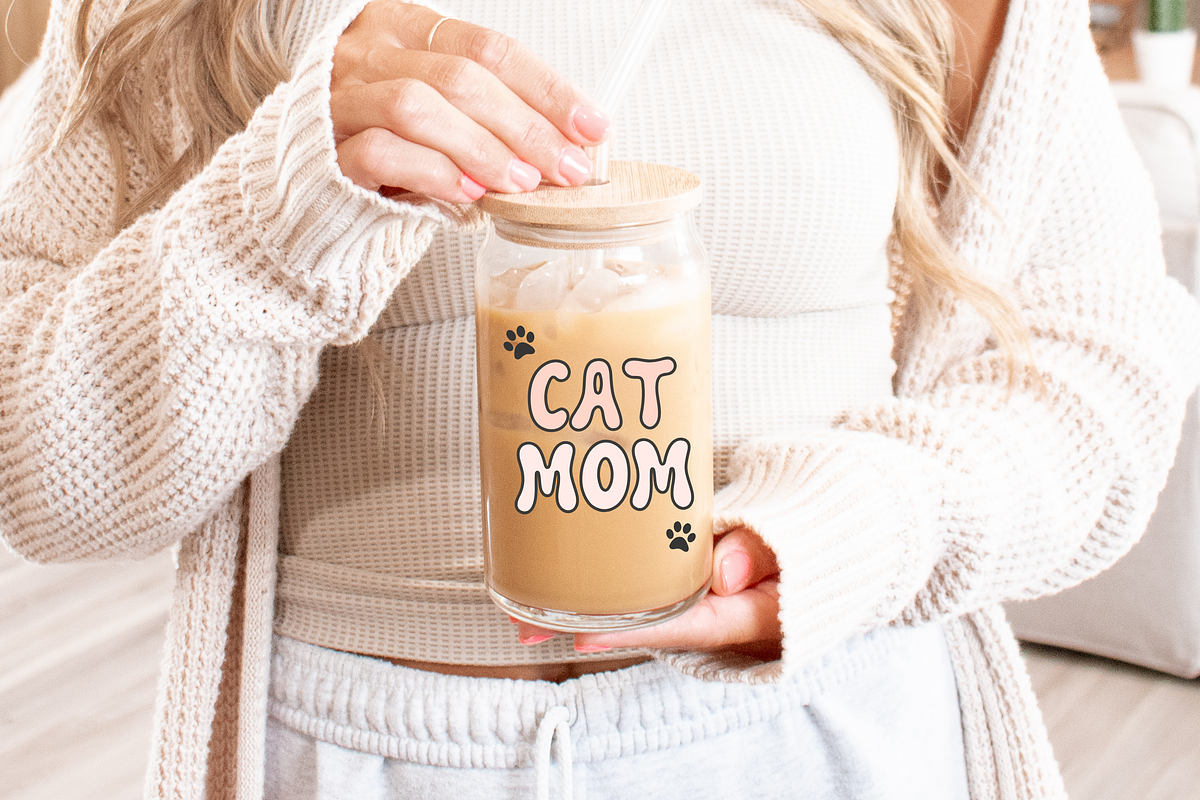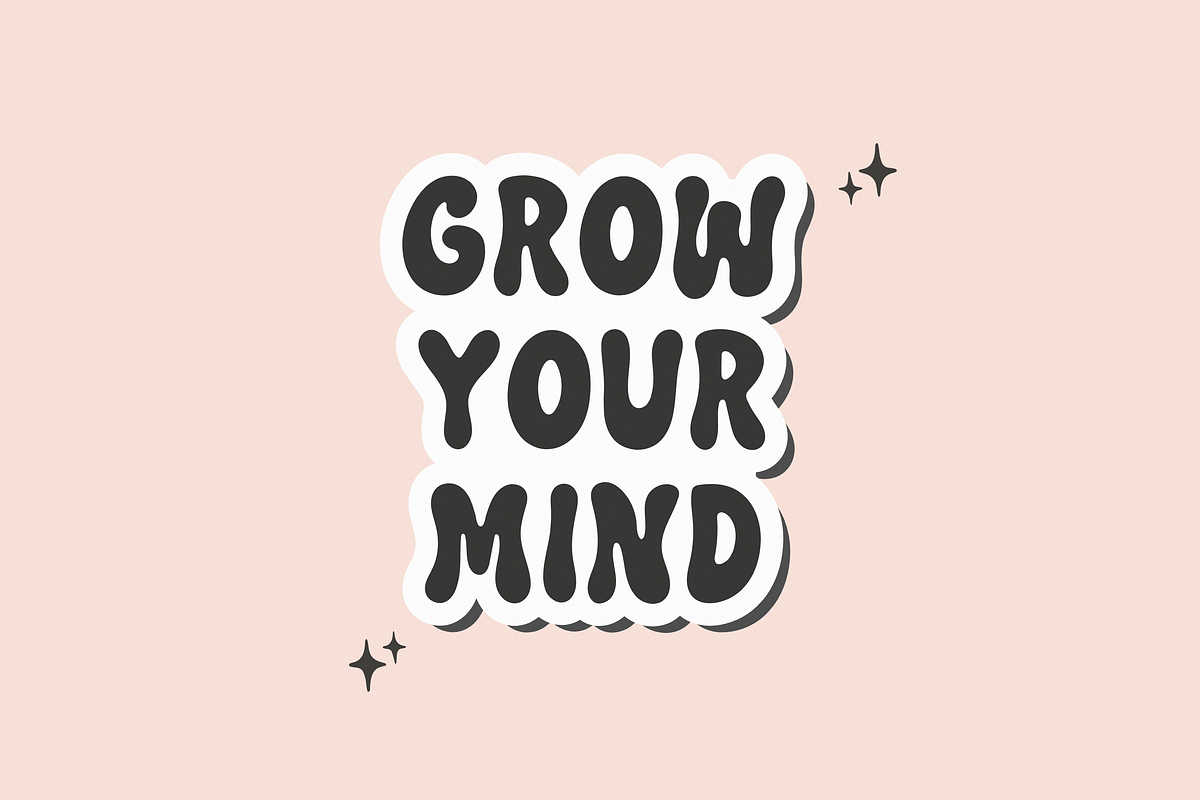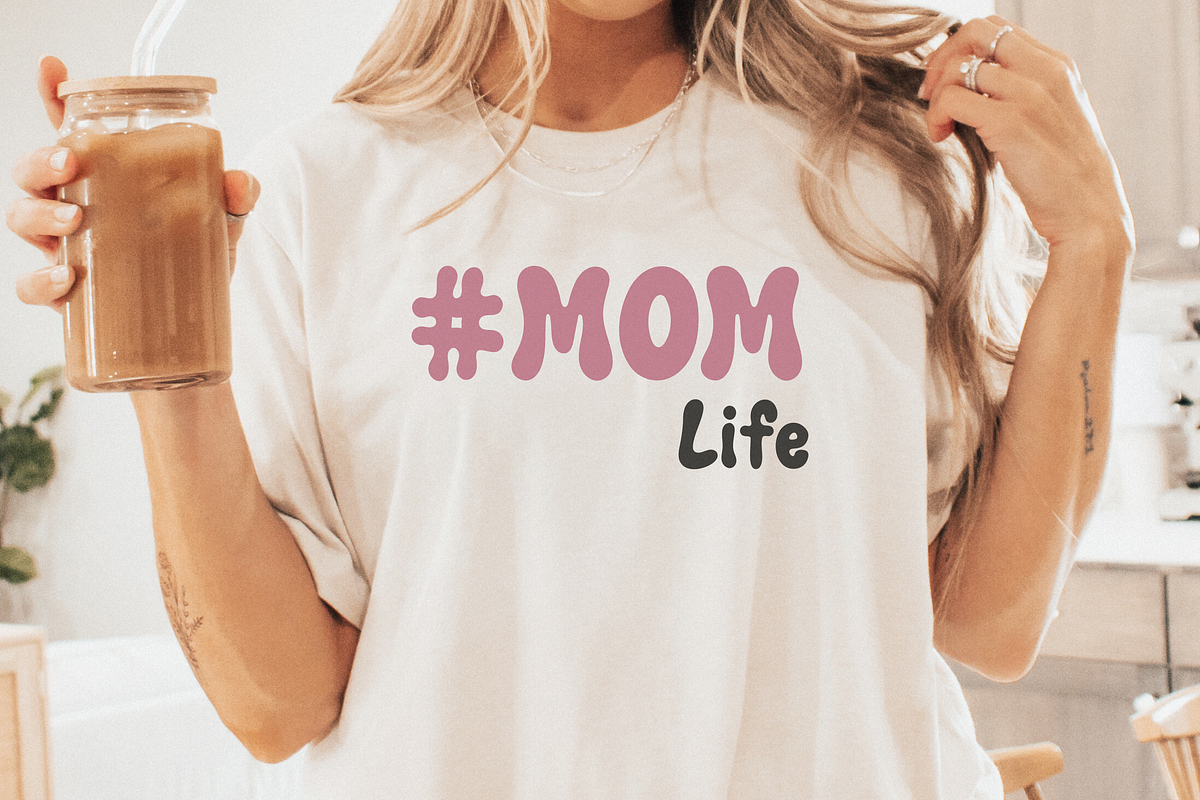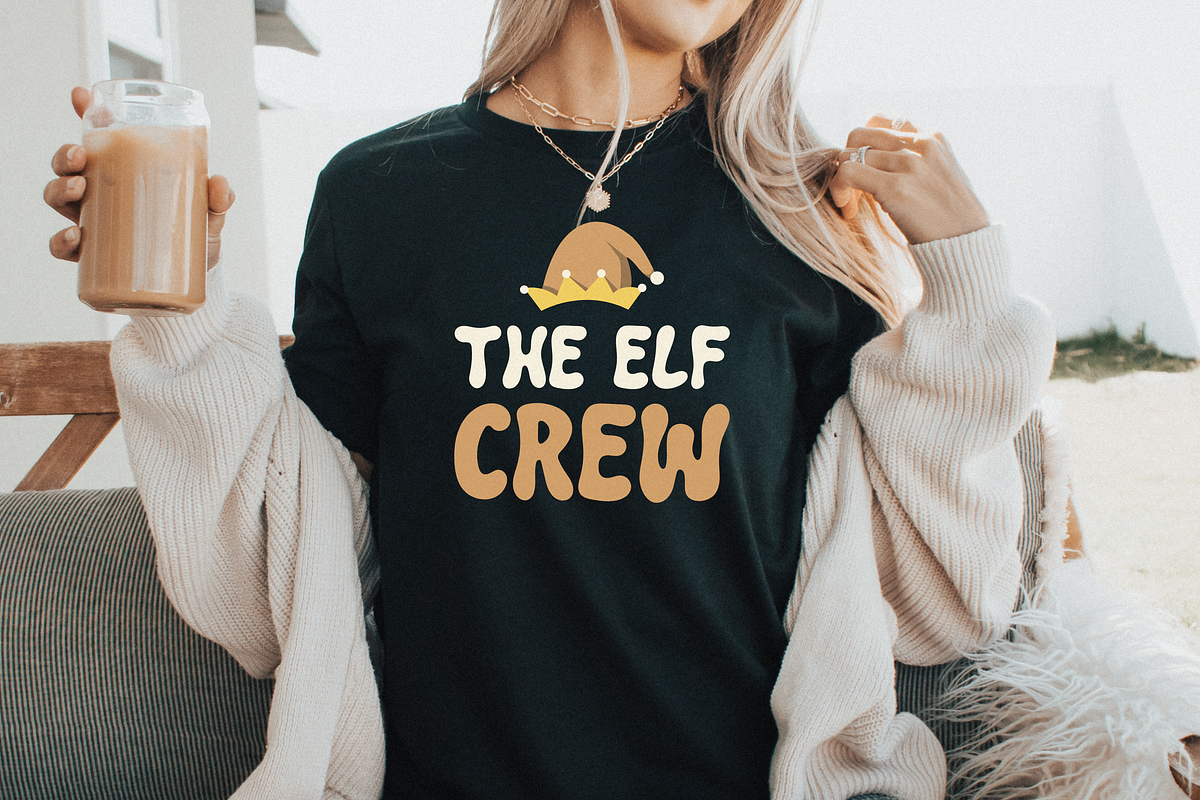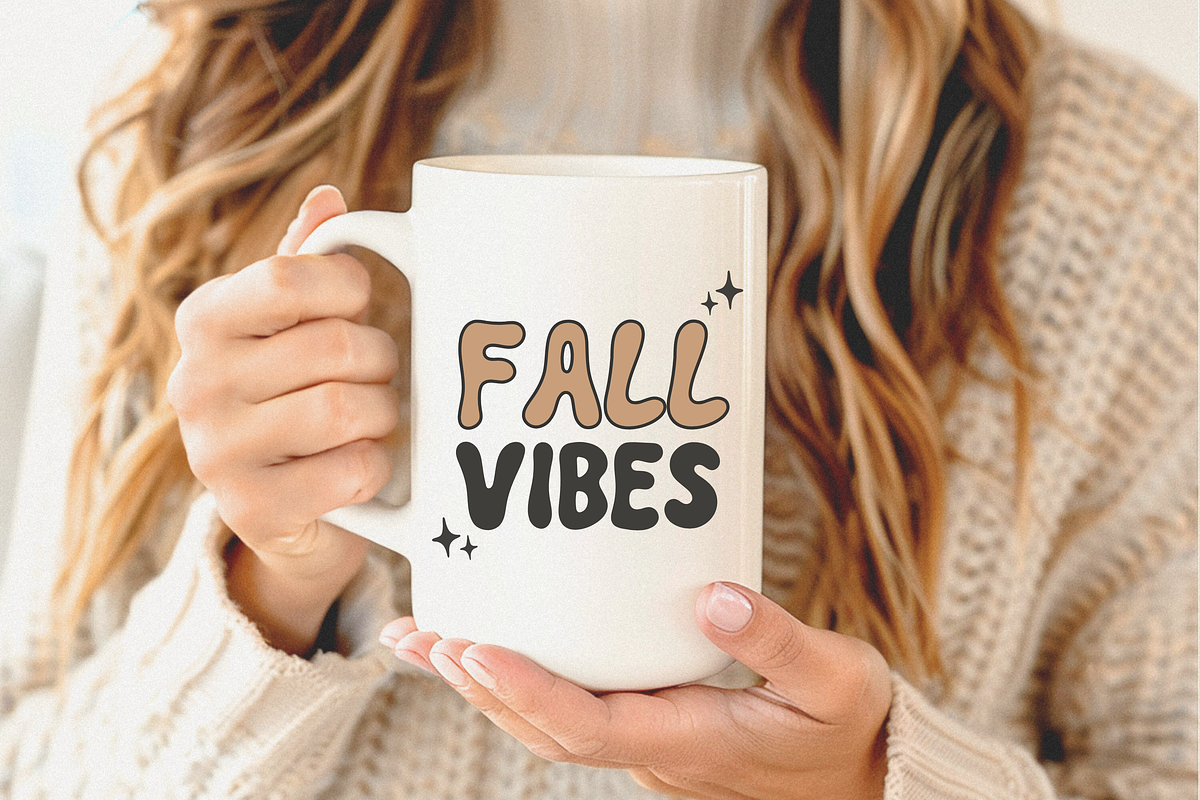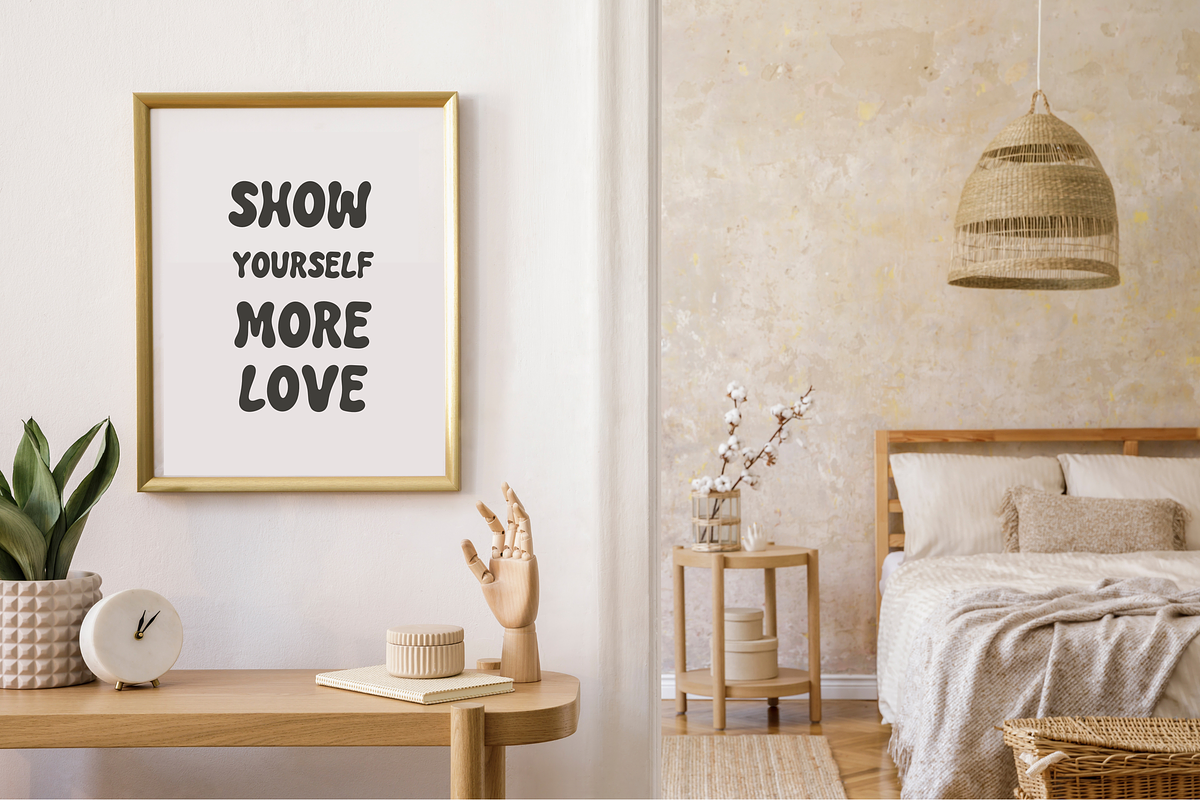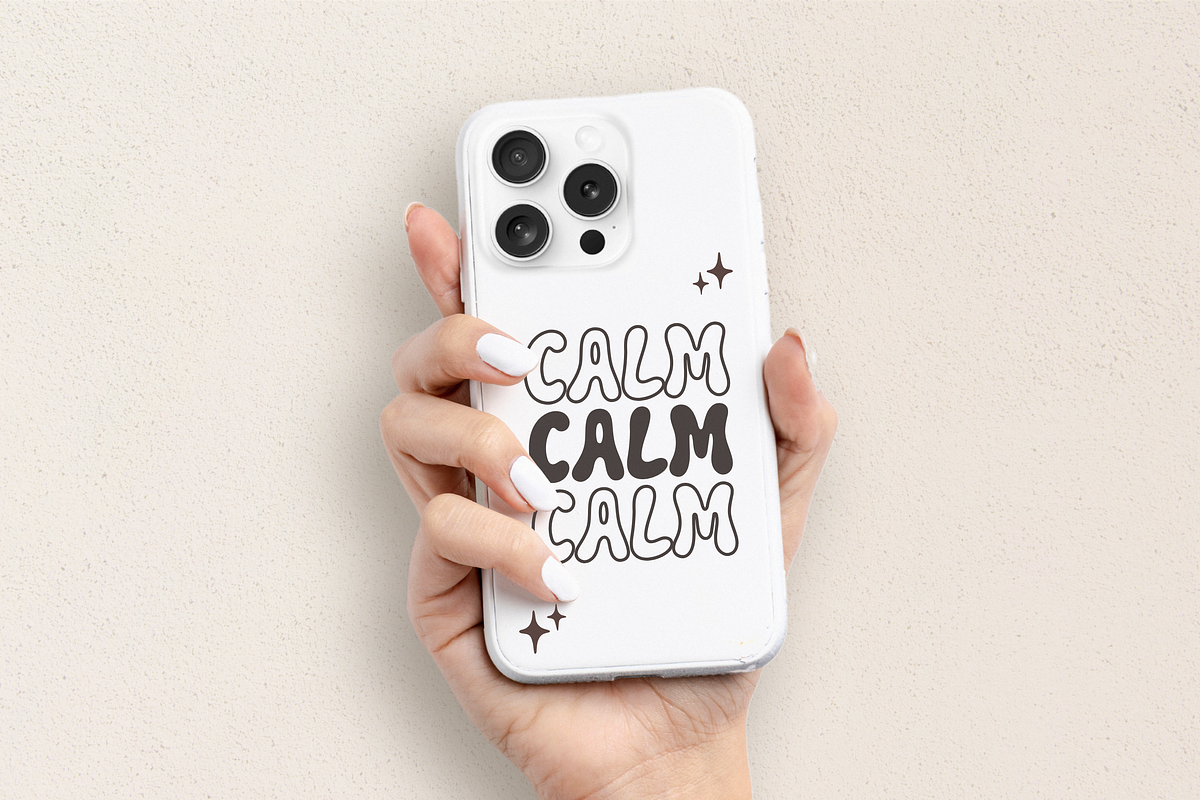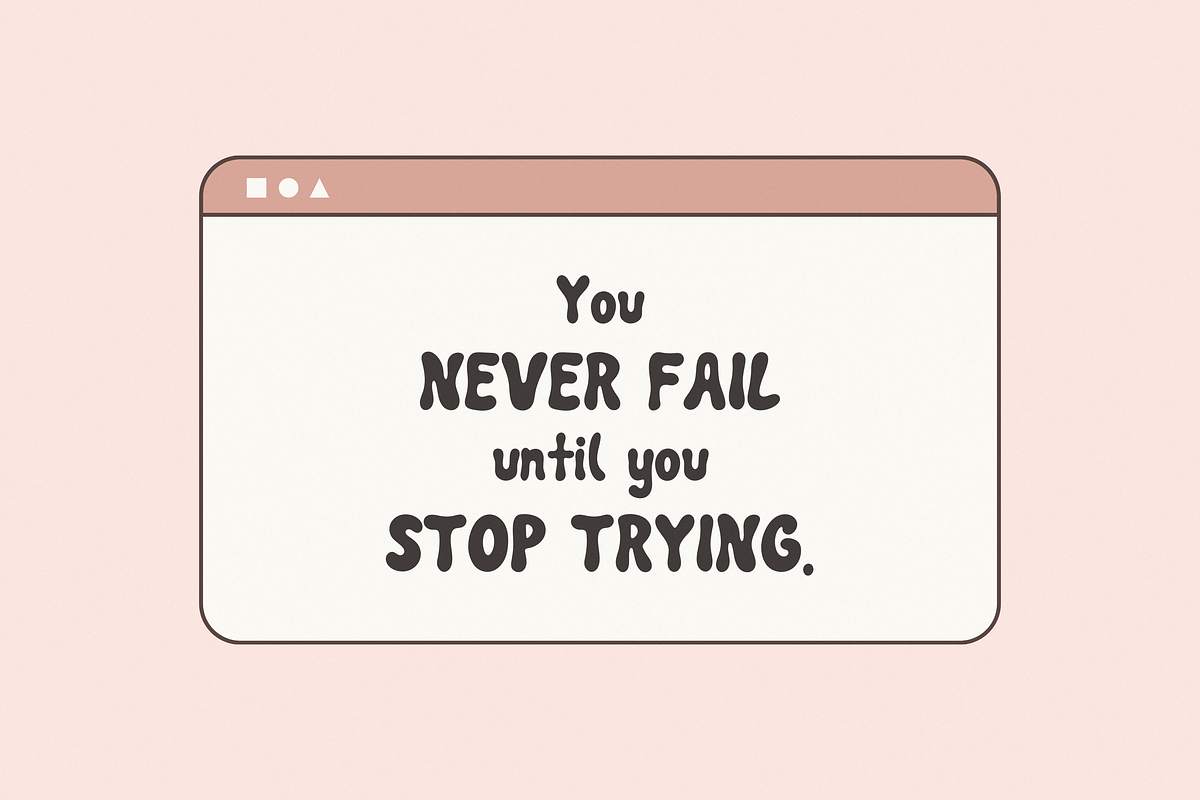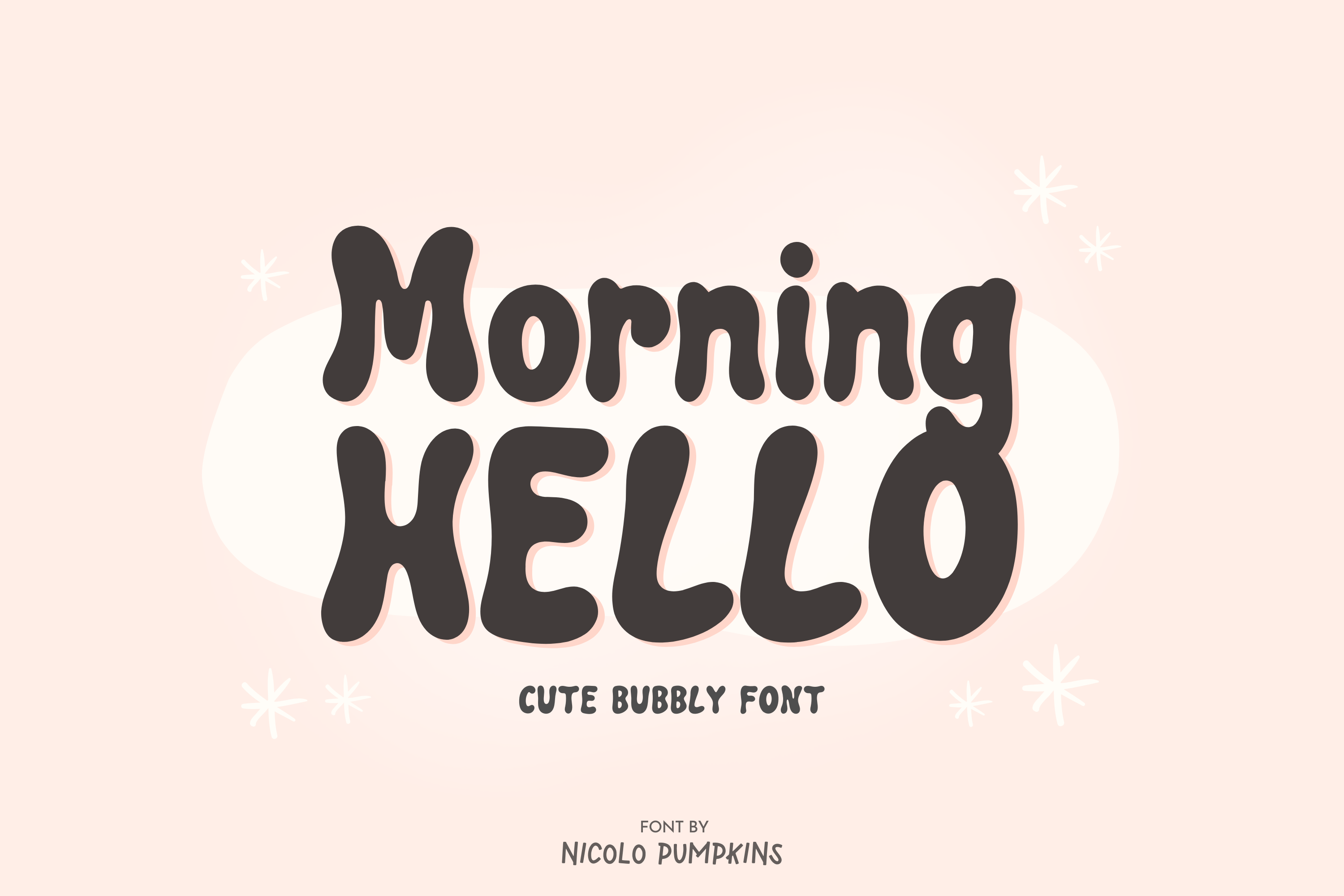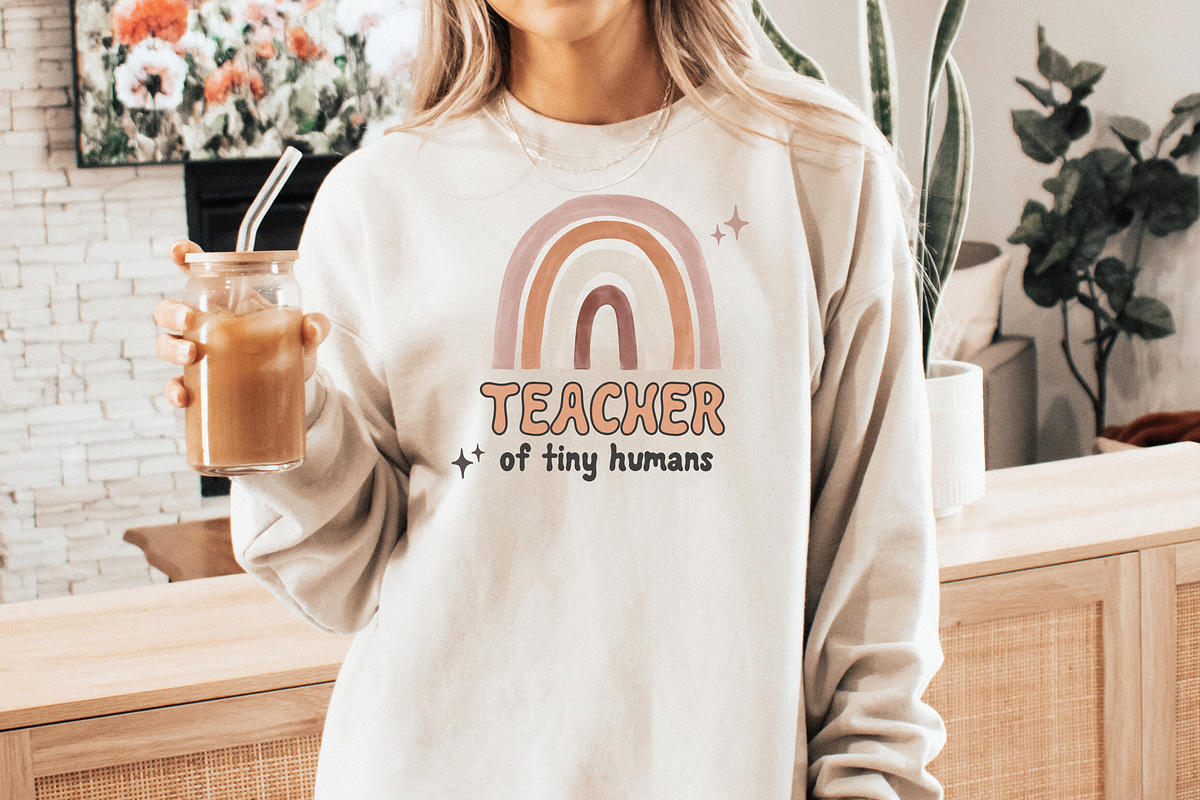
Morning HELLO Font
Morning HELLO FONT A cute bubbly retro display font with 70s, hippie and boho style
✦ Morning HELLO is perfect for: shirts, mugs, logos, wedding invitations, poster, greeting cards, social media, branding, Procreate, Cricut and more!